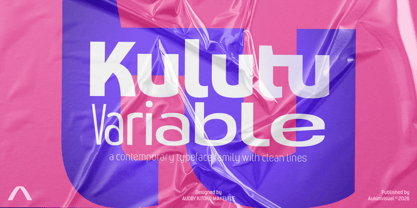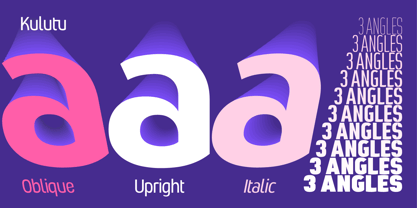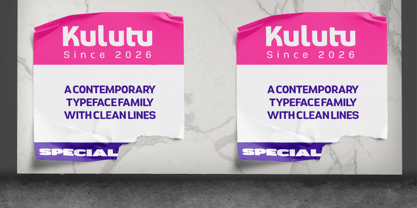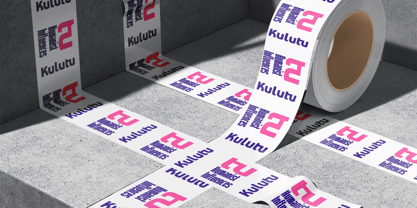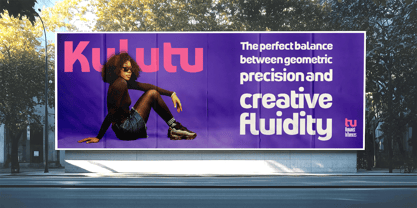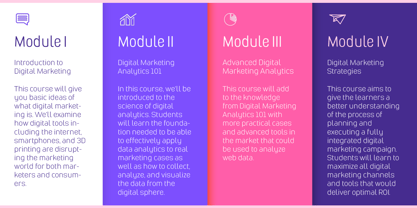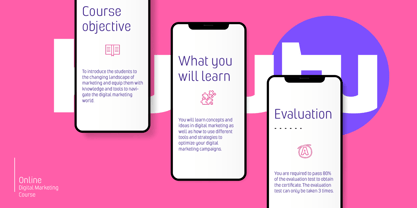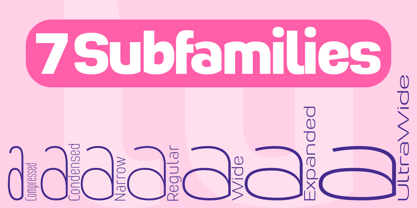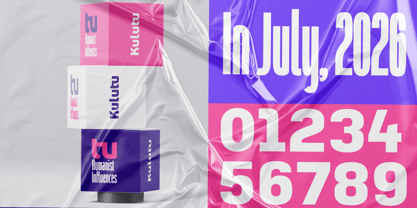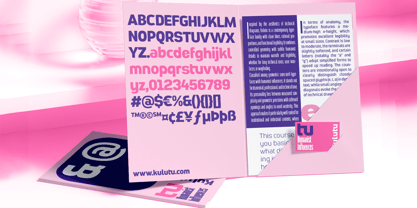
KulutuVariable
by AukimVisuel
The KulutuVariable Font Family was designed by Audry Makelele and published by AukimVisuel. KulutuVariable contains 3 styles and family package options. More about this family
Kulutu Variable is a contemporary typeface family inspired by the aesthetics of technical diagrams, characterized by clean lines, rational proportions, and functional legibility. The variable version enhances this identity by offering dynamic flexibility: weight and width can be continuously adjusted, allowing designers to adapt the typeface with unprecedented precision without the need for multiple static files. Classified among geometric sans-serif typefaces with humanist influences, Kulutu Variable maintains a neutral, professional, and technical tone. Its personality combines measured simplicity with geometric precision, featuring softened openings and angles that prevent it from appearing austere. This design approach makes the typeface particularly well-suited for institutional and industrial contexts, where clarity and visual consistency are essential. Anatomically, Kulutu Variable features a medium-high x-height, enhancing readability even at small sizes. The contrast is low to moderate, with slightly softened terminals, while certain letters, such as the “a” and “g,” adopt simplified forms to facilitate faster reading. The counters are open to clearly distinguish closely spaced glyphs (e, c, o) in dense text, and small angles on the diagonals evoke the precision of technical drawing lines. The typeface family is structured to offer great flexibility: it includes 7 subfamilies, ranging from Compressed to UltraWide, and 13 weights, from Thin to Extra Black. In the variable version, these parameters become continuous axes, allowing designers to navigate freely between extremes and adjust typography to meet specific project needs. The typeface encompasses 298 glyphs centered on basic Latin characters, making it an ideal tool for technical and documentary applications. OpenType features include contextual ligatures, small caps, discretionary ligatures, and fractions, enhancing typographic precision. Kerning and spacing have been meticulously calibrated according to two sets of optical and metric values optimized for both user interfaces and print, ensuring smooth readability across all media. In practice, Kulutu Variable excels in technical manuals, industrial interfaces, signage, and scientific reports. To establish a clear hierarchy, it is recommended to use light weights for captions, medium weights for body text, and bold weights for headings and numbering. Thanks to its variable structure, Kulutu is an agile and modern tool, capable of adapting with precision and consistency to both digital and print environments.